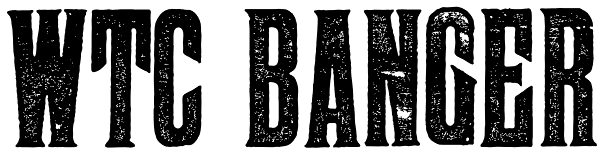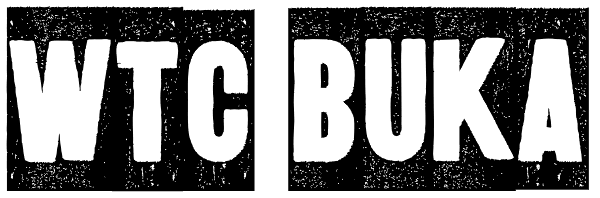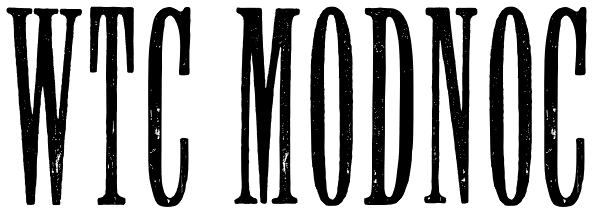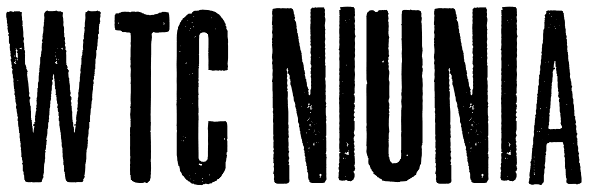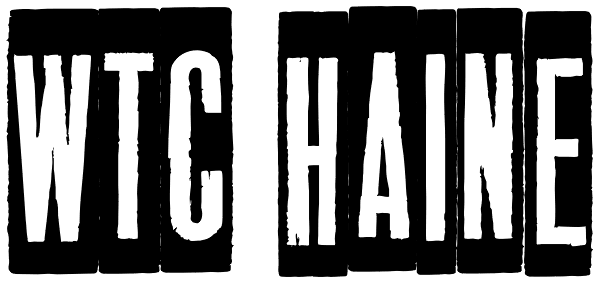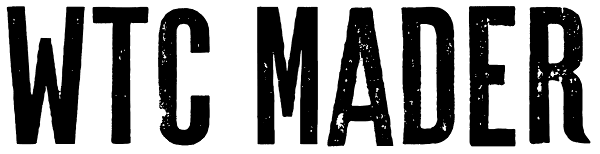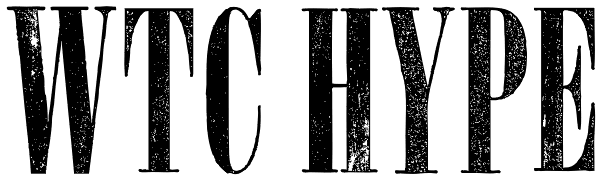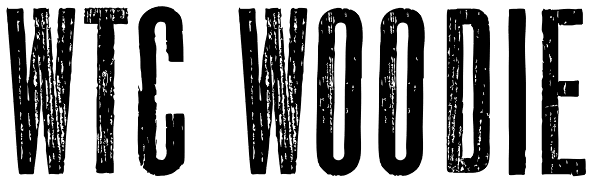
Wood Type Collection
WOOD TYPE COLLECTION from BORUTTA is a set of wonderful, warm and weathered hand made typefaces designed by Mateusz Machalski. The Inspiration for this collection comes from a wooden letter blocks and other old technologies used for printing. WTC...